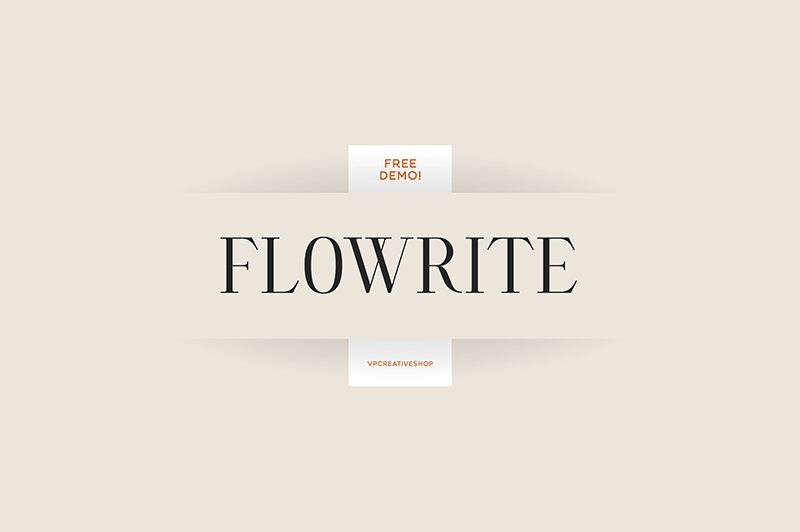
Flowrite Demo
Flowrite font is a serif typeface designed by VPcreativeshop, showcasing elegance, refinement, and sophistication. This formal font is characterized by its classic style with distinct serifs that add to the professional feel of any textual content. An excellent choice for whenever graceful and aesthetic vibes are sought.
Combine the free serif font Flowrite with formal invitations, branding projects, book covers, quotes, poster designs, printed T-shirt designs. It’s suitable for stationery designs (business cards), website headers as much as it can be integrated in magazine and aesthetic vibe weblogs’ cover images!